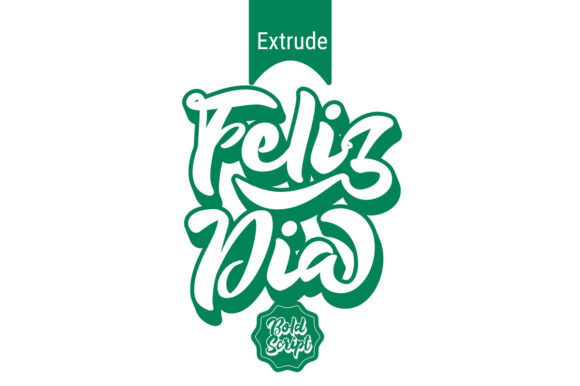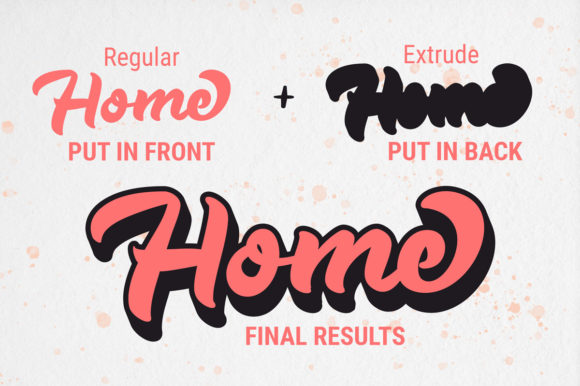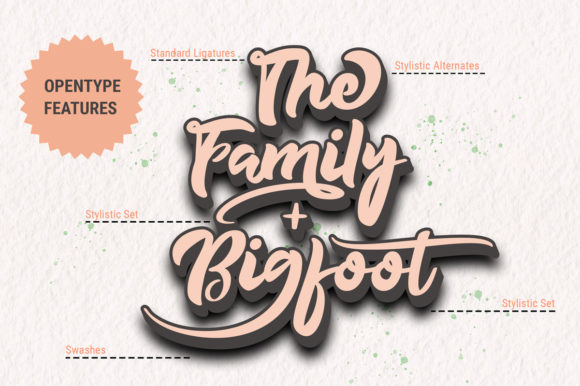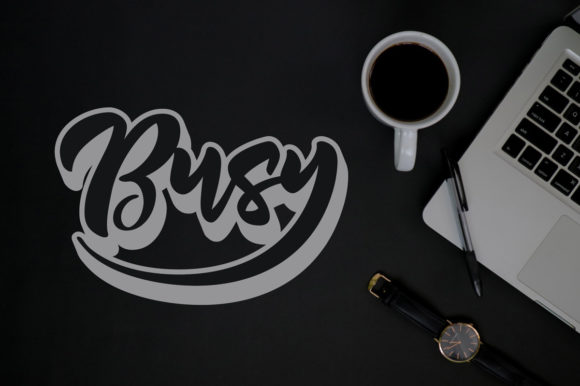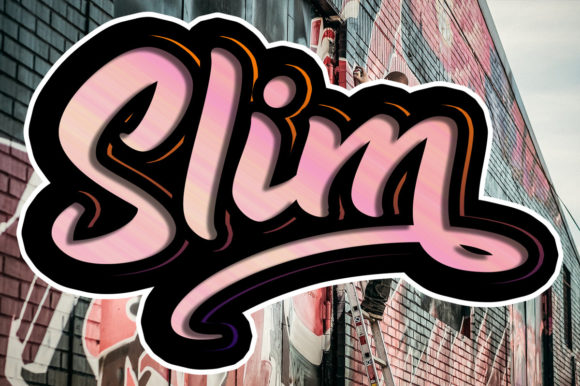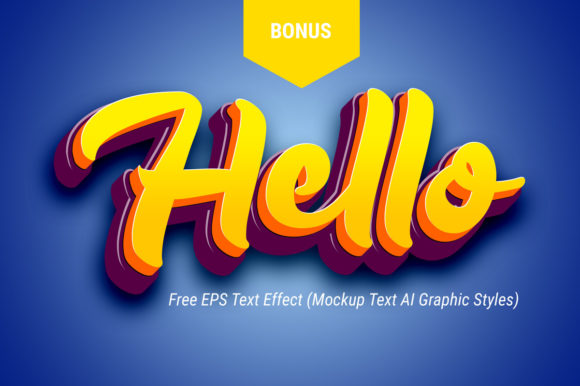
Do you ever find yourself browsing through your favorite design inspiration boards, only to be stopped in your tracks by a beautifully handwritten font? For me, that moment came when I stumbled upon the enchanting Feliz Dia Font. Its flowing curves and playful nuances immediately caught my attention, and I knew I had to learn more about this charming script font.
As it turns out, Feliz Dia Font is a versatile and trendy handwritten font that’s perfect for adding a touch of romance to your next project. From greeting cards to headlines, this font is guaranteed to bring a smile to your audience’s faces. For designers, Feliz Dia Font is a valuable asset, offering a wide spectrum of applications and the ability to elevate your designs to the next level.
Feliz Dia Font Key Features
- Font Family: Feliz Dia is a script font, designed to evoke a sense of happiness and celebration.
- Size: The font comes in 4 different sizes: 100, 200, 300, and 400, allowing for flexibility in design.
- Resolution: Supports high-resolution printing and digital displays, making it suitable for a wide range of applications.
- Unique Characteristics: Features a unique, hand-painted style with intricate details and flourishes, adding a touch of elegance to any design.
- Language Support: Supports a wide range of languages, including Latin-based languages, making it a versatile choice for designers and typographers.
Feliz Dia Font Review
Overall, I’m quite impressed with the Feliz Dia Font. Here’s what I like:
- ✨ Elegant and modern design: The font has a sophisticated feel to it, perfect for high-end branding or editorial projects.
- ✨ Beautiful typography: The curves and lines work harmoniously together to create a visually appealing experience.
- ✨ Great for large and small text: Whether you’re using it for headlines or body text, Feliz Dia Font looks great at various sizes.
However, there are a few limitations I’ve noticed:
- ⚠️ Limited language support: I’ve found that the font doesn’t support certain languages, which might be a problem for international projects.
- ⚠️ Not ideal for body text: While the font looks great at large sizes, it can be difficult to read at smaller sizes, especially in paragraphs.
Overall, I think Feliz Dia Font is a great choice for specific projects. Its elegant design and beautiful typography make it perfect for high-end branding or editorial projects. However, it might not be the best choice for projects that require extensive language support or large amounts of body text.
Tip: Use Feliz Dia Font for headings and titles to add a touch of festive flair to your designs.
Tip: Use Feliz Dia Font to add custom text to your designs, such as gift tags or holiday cards.
Tip: Use Feliz Dia Font for titles and headings to add a festive touch to your presentations and documents.
Feliz Dia Font is perfect for:
- Holiday cards and invitations
- Gift tags and wrapping paper
- Party decorations and signage
- Seasonal marketing materials